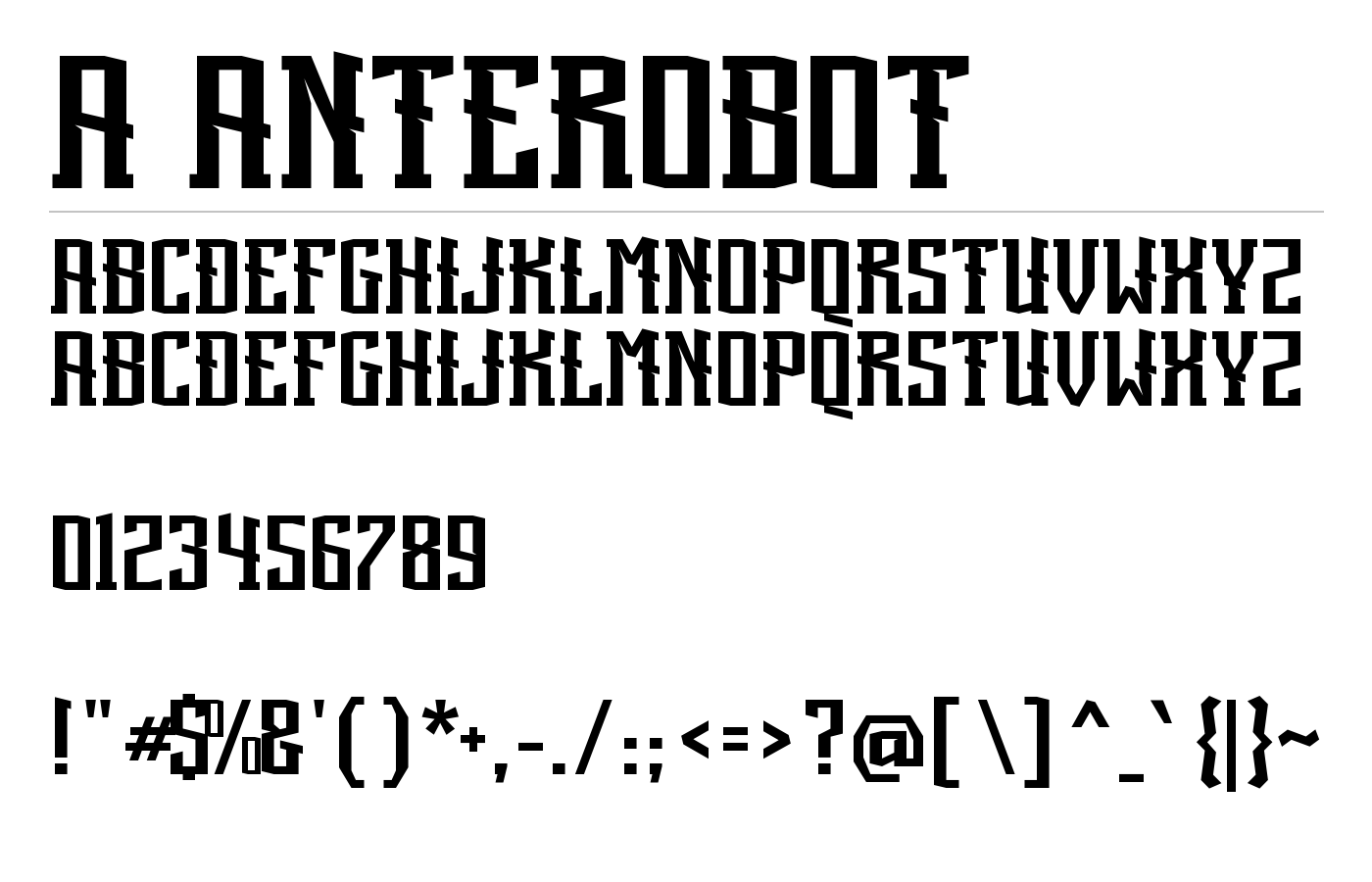
Anterobot is a bold, condensed slab serif font with a distinct mechanical and industrial feel, characterized by its sharp, angular serifs and high contrast between thick and thin strokes. Its geometric, almost robotic letterforms convey strength and precision, making it perfect for futuristic or tech-inspired designs, bold headlines, and branding that demands a modern, edgy look. This uppercase-only, all-caps font brings a strong, assertive personality to logos, posters, and editorial layouts where impact and style are key.
a Anterobot Font
About a Anterobot Font